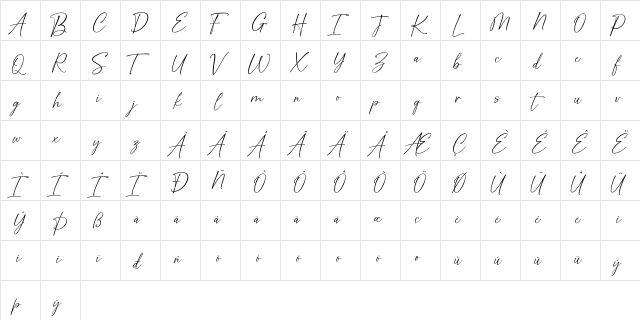
Golden Dream Regular
| Designer | Ef Studio - Luthfi Fauzi - Purwakarta(INA) |
Design Context for Golden Dream Typeface
Golden Dream is a composed and adaptable typeface that performs quietly and consistently across a wide range of design contexts.